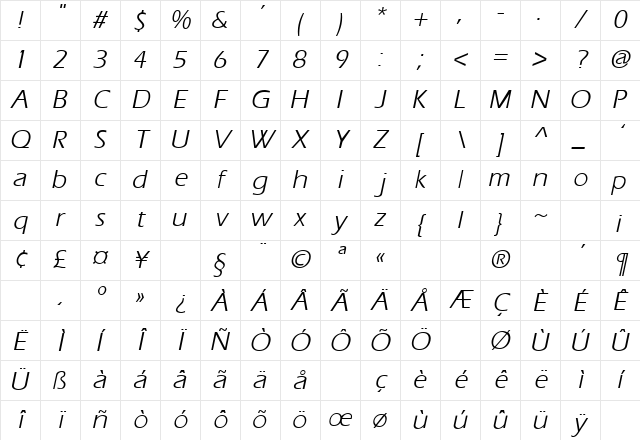
Eros Italic
Design Context for Eros
Eros is a composed and adaptable typeface that performs quietly and consistently across a wide range of design contexts. The slanted form adds forward momentum and visual energy.
Pro Tip: Use Eros for emphasis, pull quotes, and subheadings where its slanted energy can add rhythm to the layout.